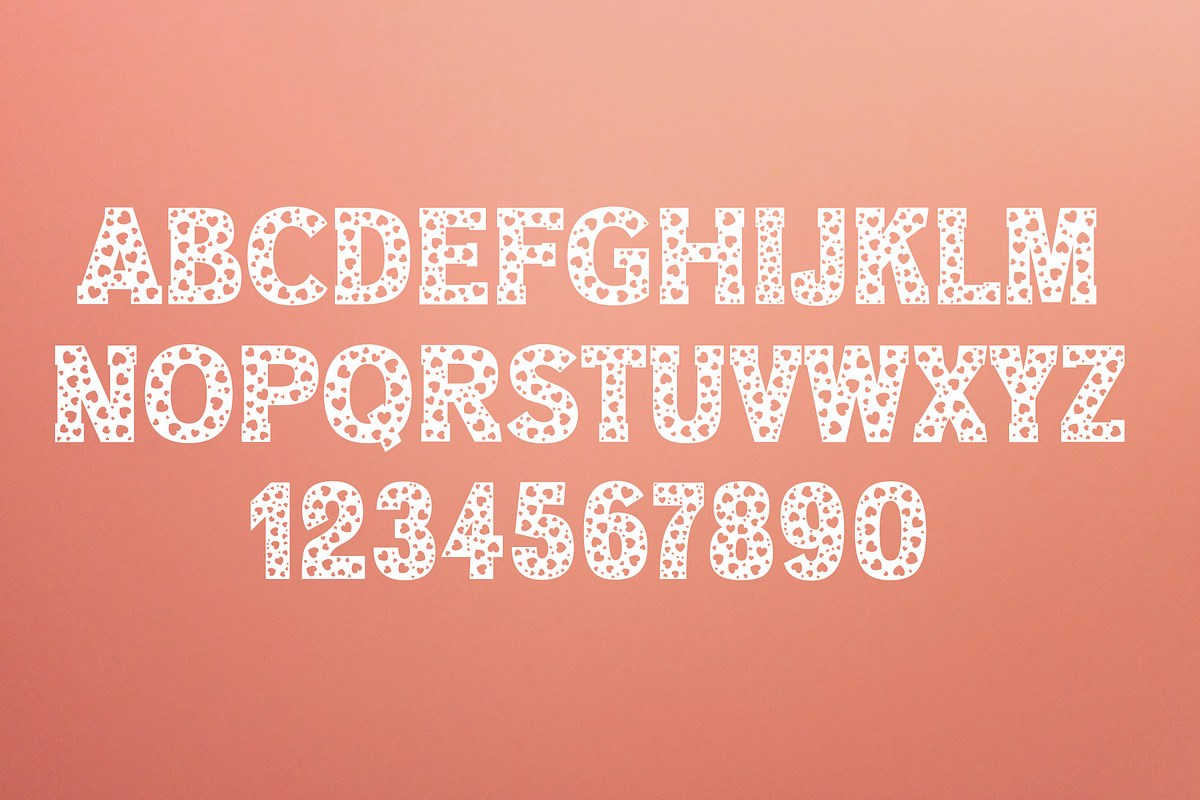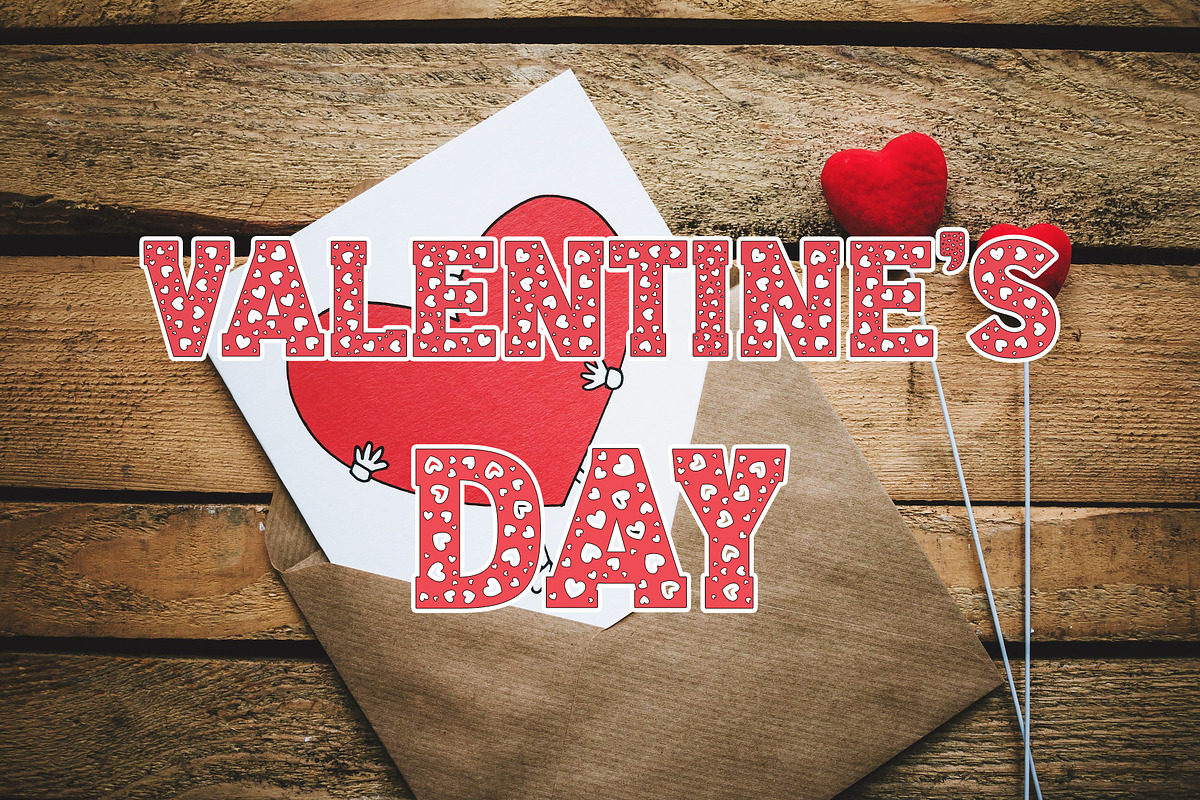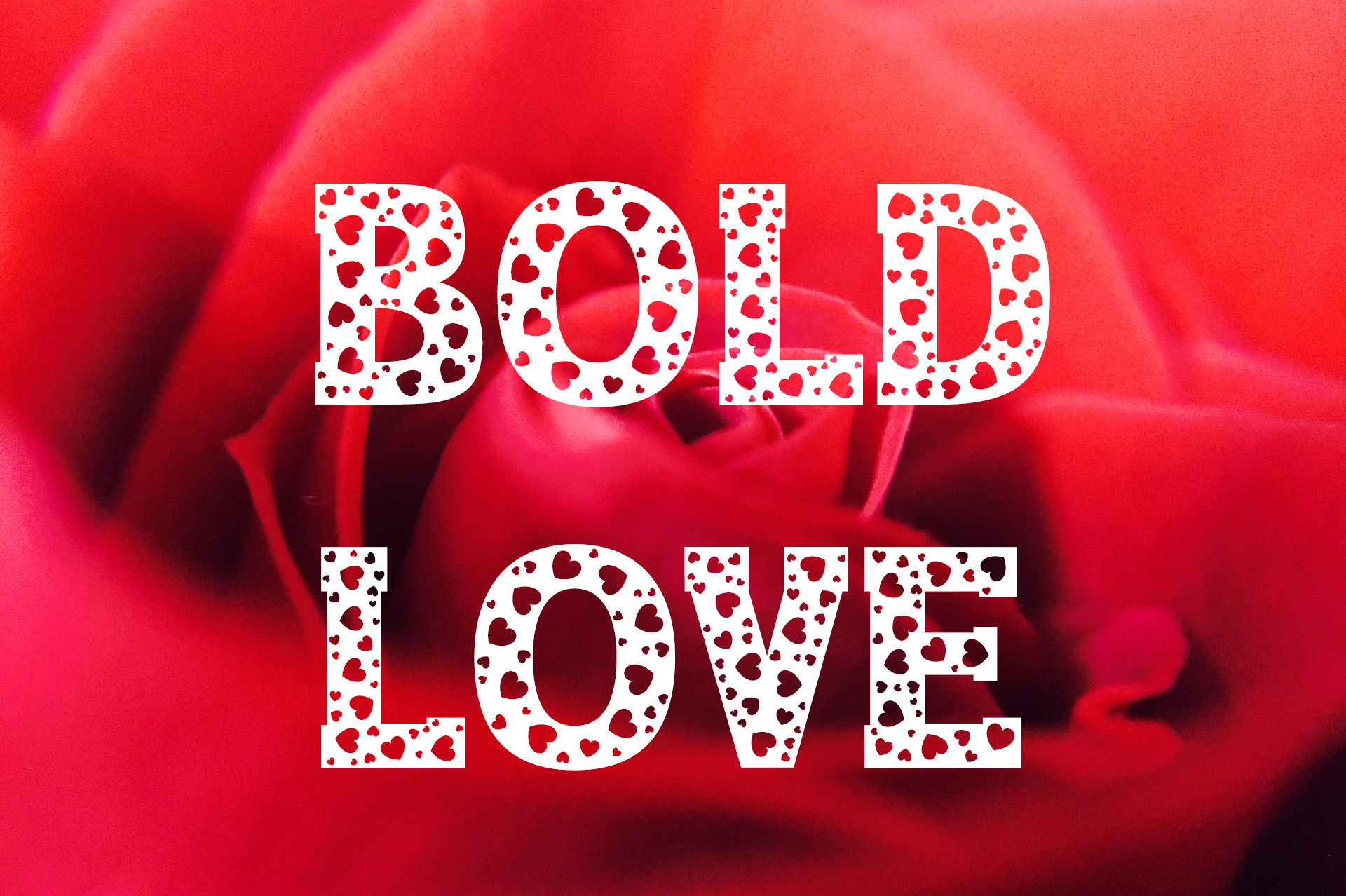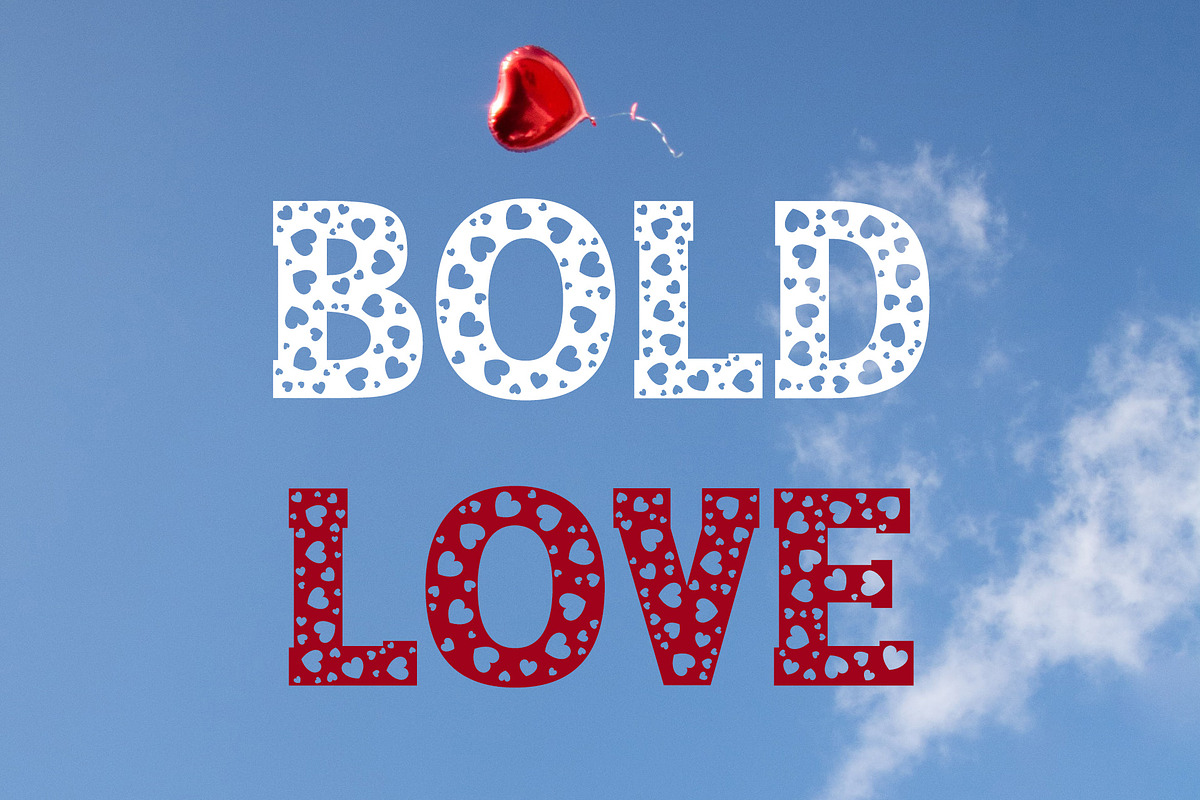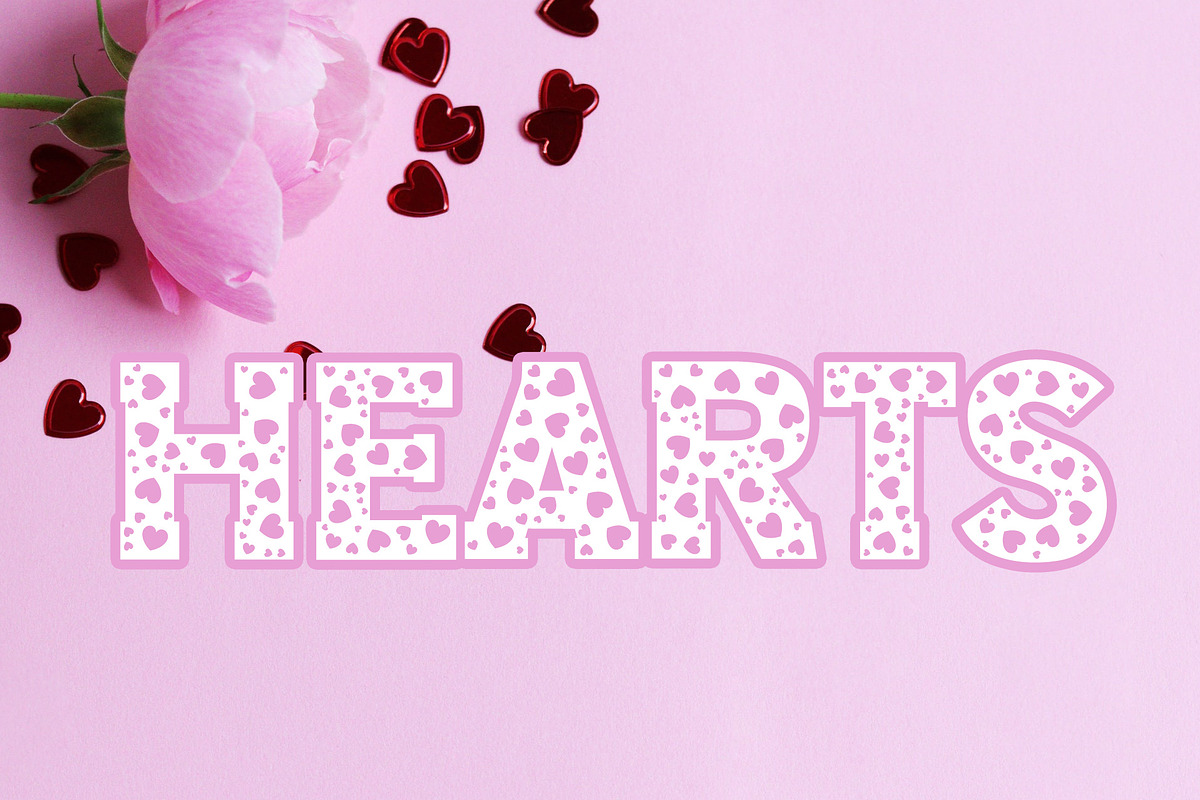
Bold Love - Valentines Font
Bold Love - San Valentines Font.
Cool font with hearts.
Bold Love it’s perfect for anything to do with love and romance. Add a little Valentine magic to your designs!
Great for Valentine's day cards, wedding invites, kids apparel, T-shirts and more..